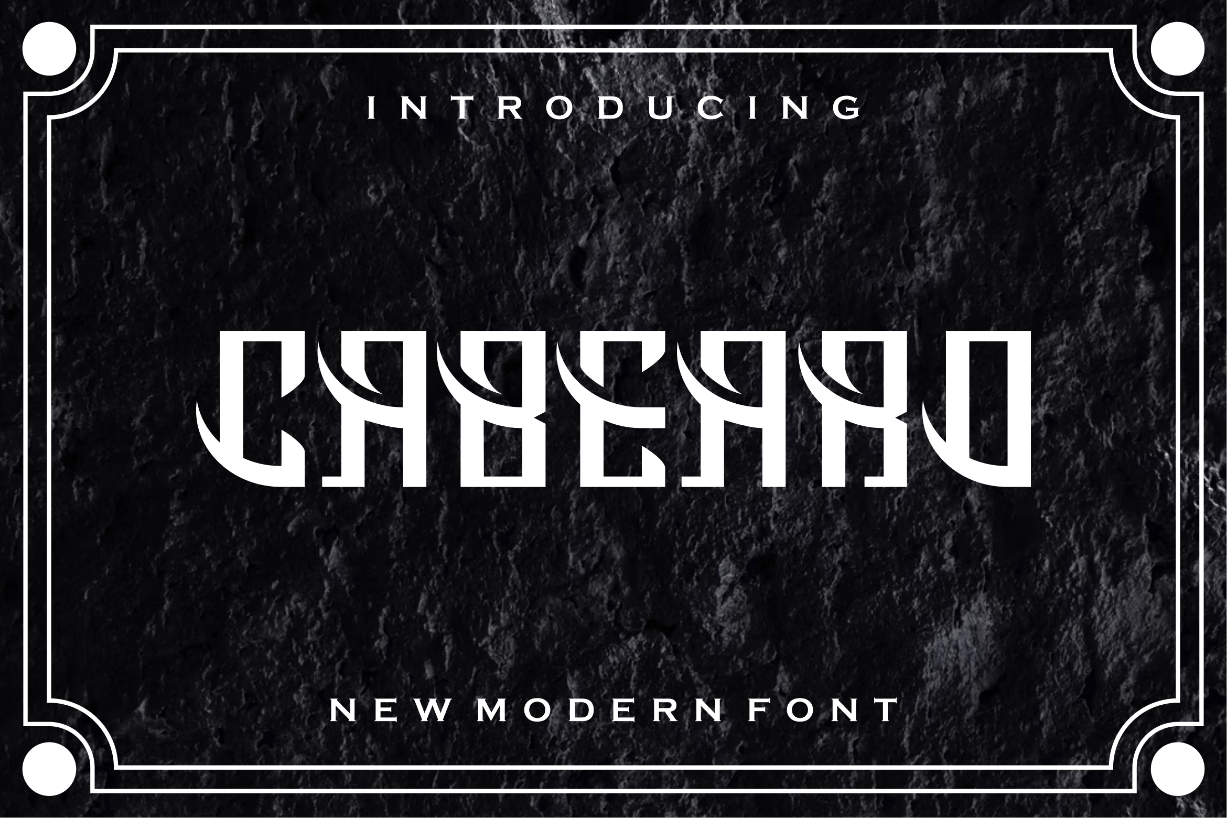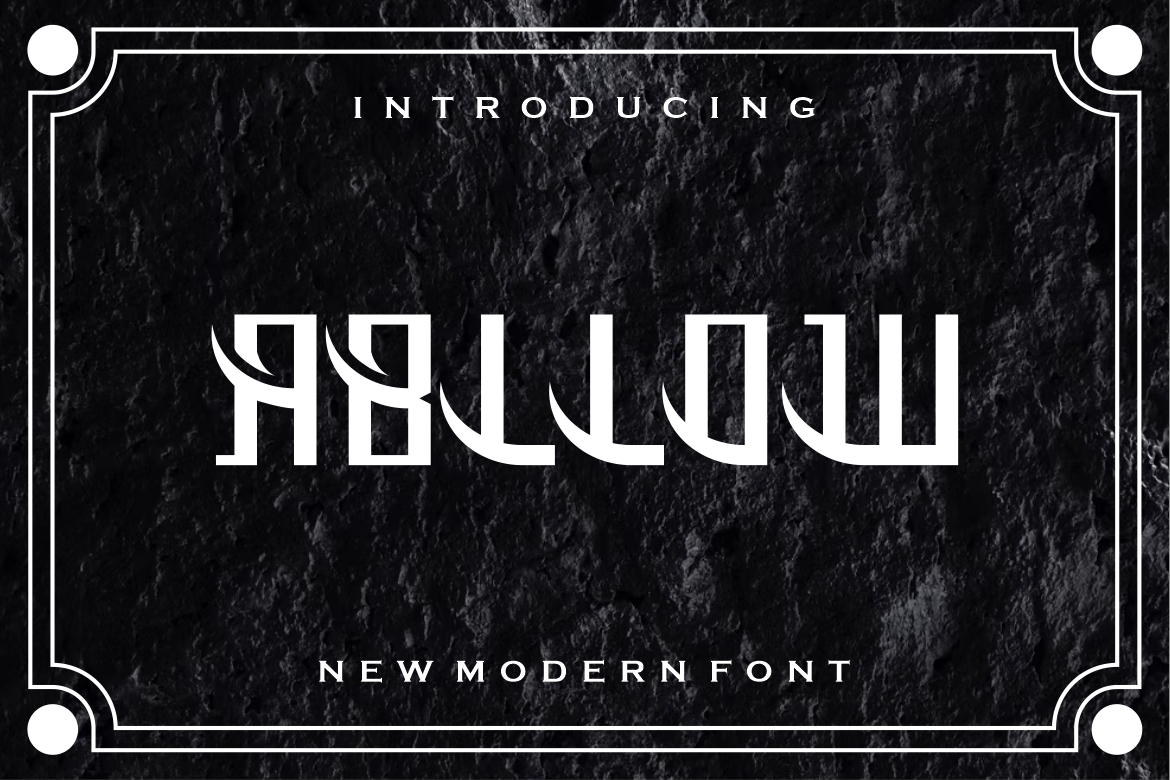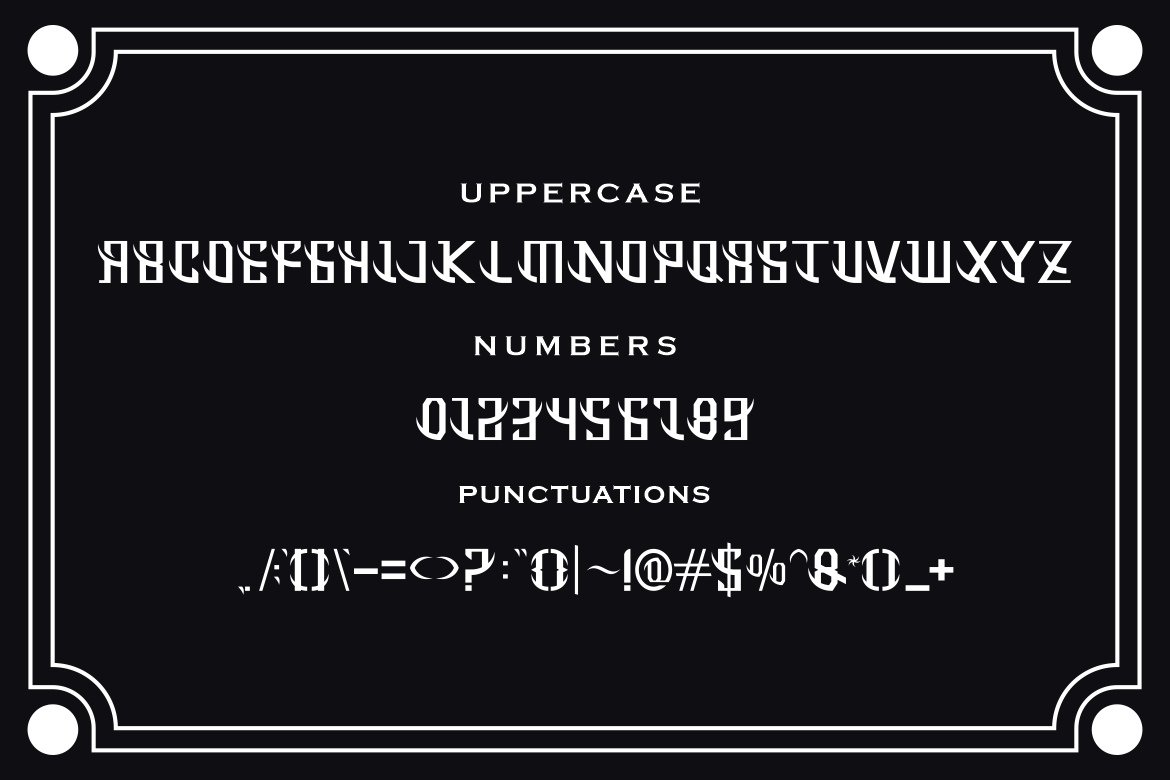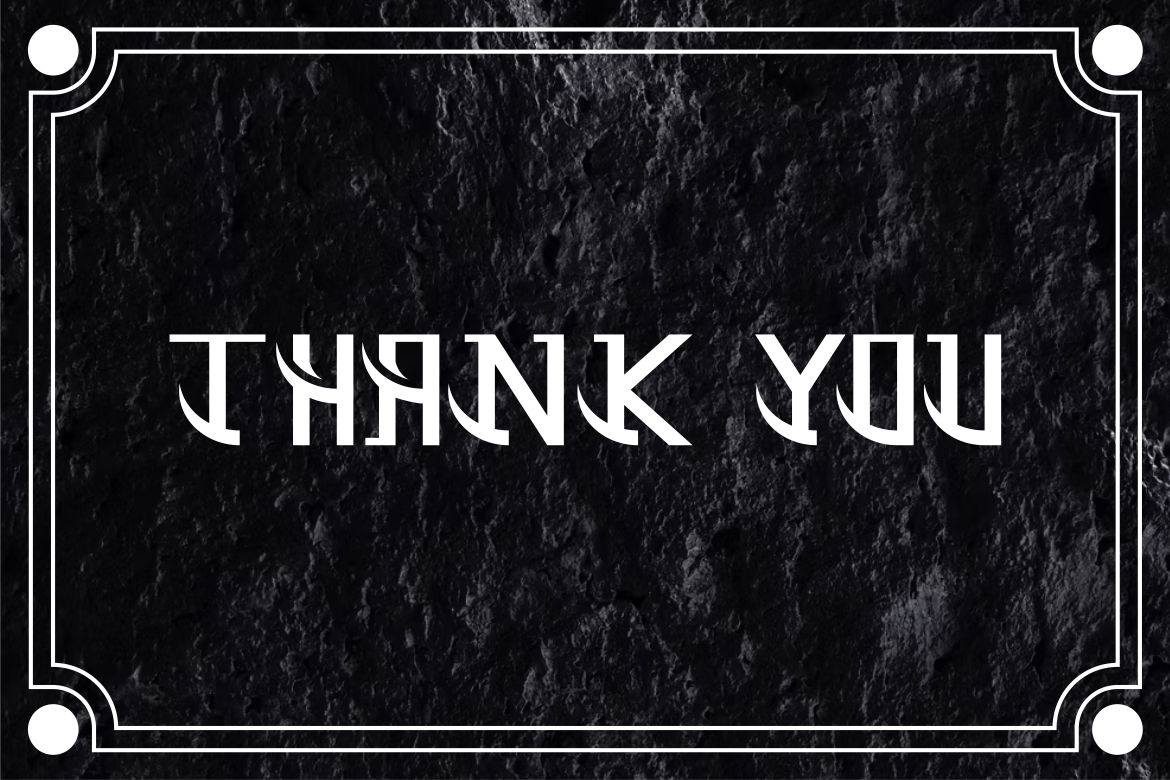
Cabearo Font
About Cabearo Font
Cabearo is a gothic and impressive blackletter font, suitable for your wildest creative ideas. Its unique and solemn character will ensure an outstanding result every time you use them!